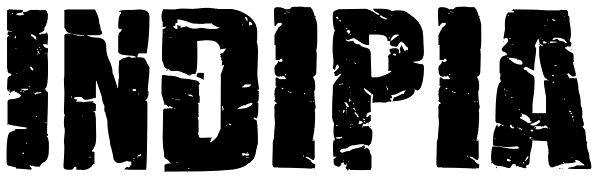
Indipia
Indipia is a caps-only, misprinted font perfect for displays, titles, and headlines, embodying a grunge, street art vibe.
Its uniqueness lies in alternative characters for every double-letter combination from aa to zz and AA to ZZ, ensuring no two degraded letters look the same. This feature adds a raw, creative flair to each design, making Indipia ideal for bold and unconventional visual projects.